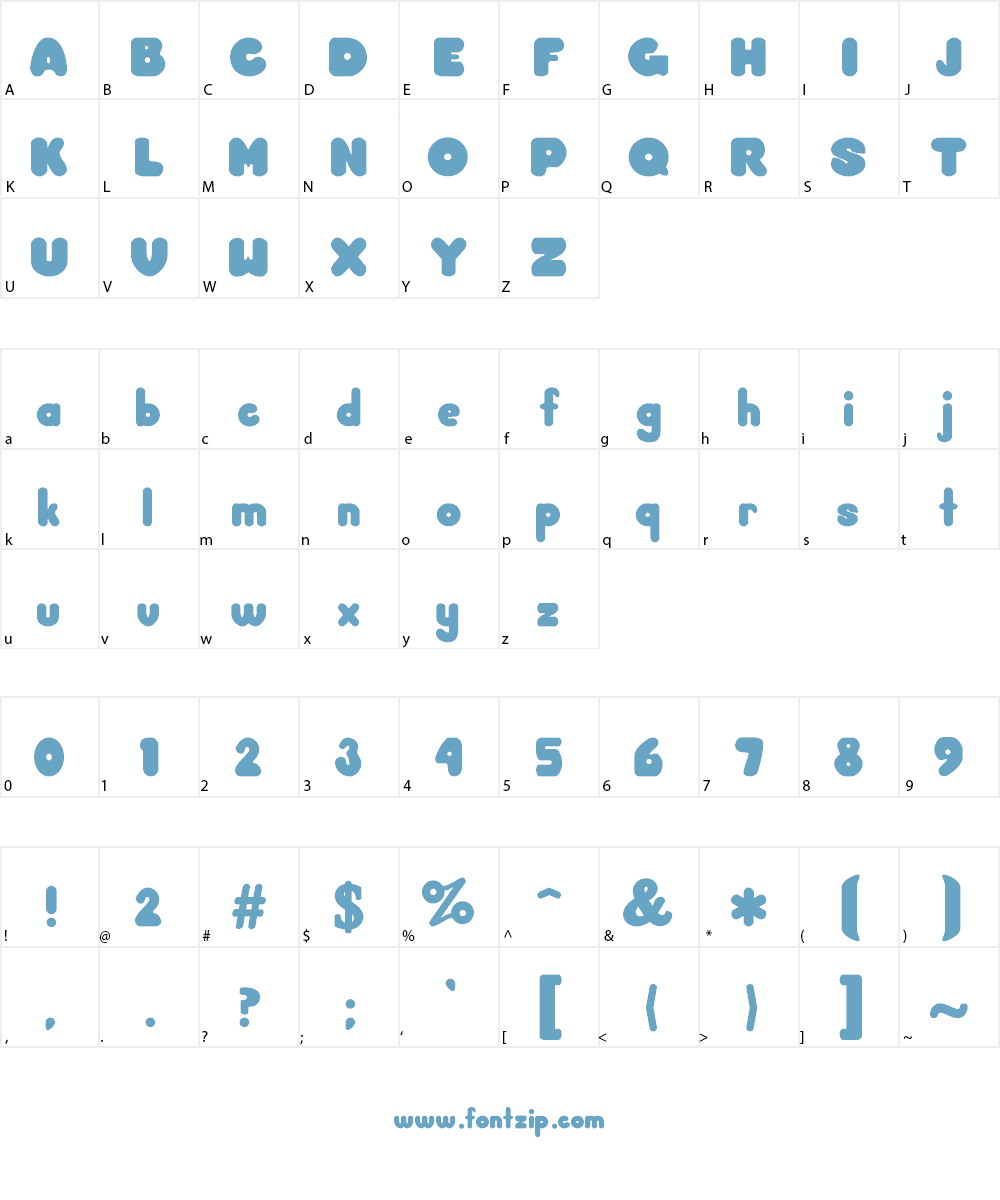
By Jove, my quick studies of lowerization won a prize!
The lowerized version of Overmuch you all wanted is here, with more symbols, and letters with accents!
The Unicode "U F8FF" is the UCF logo, based off the DST logo from fonts like "MarkerFelt".
Based on the original ALL CAPS Overmuch font by Digital Graphic Labs. ©1999.